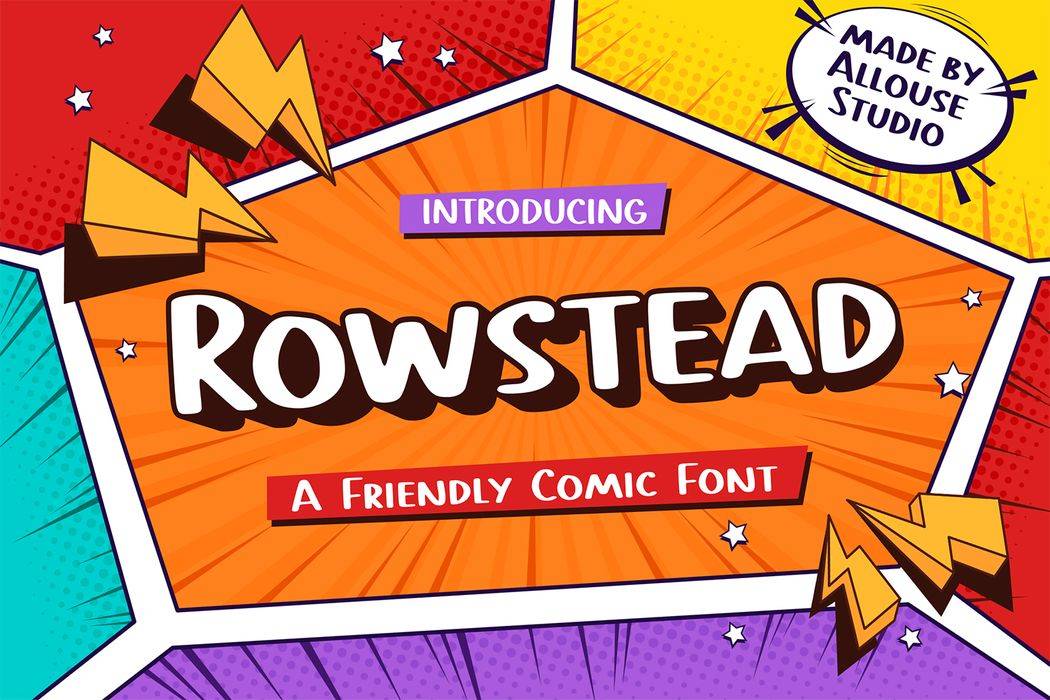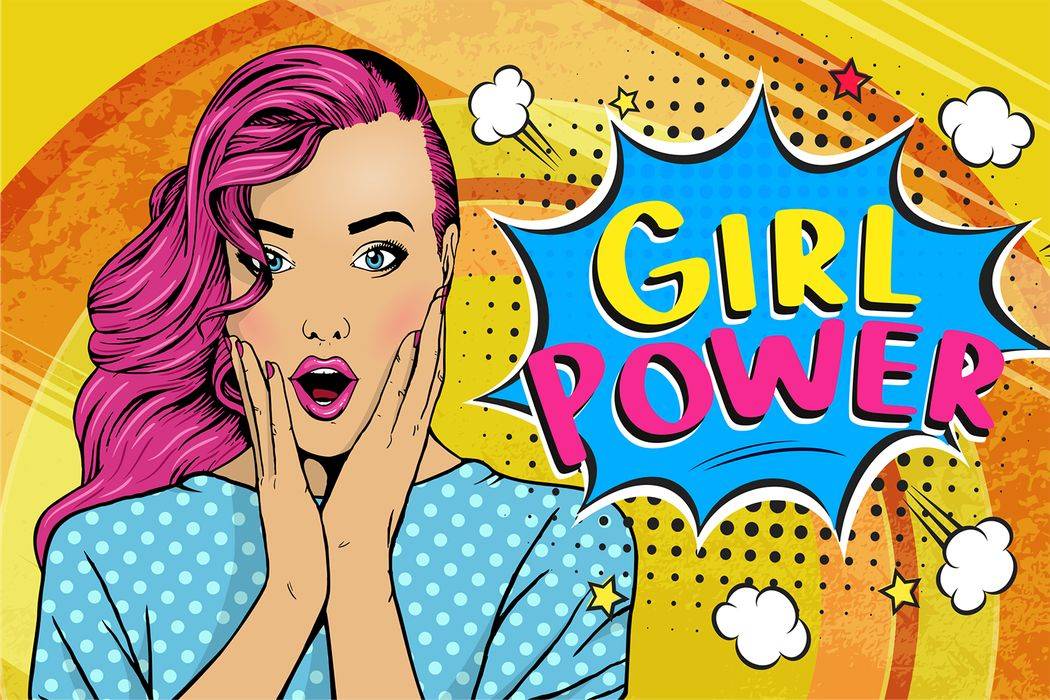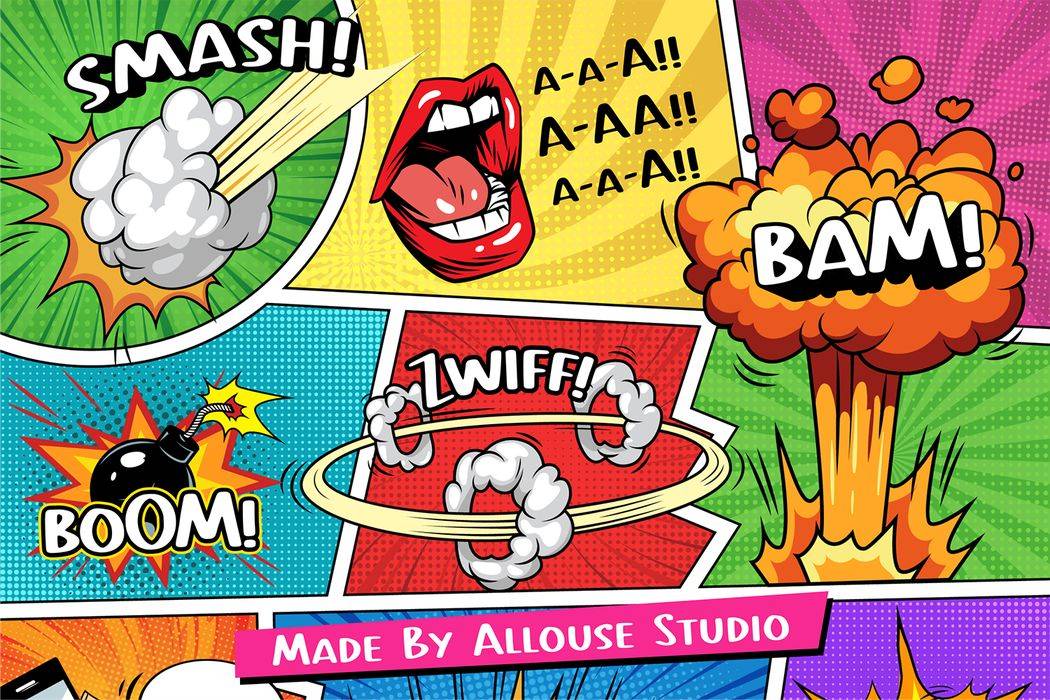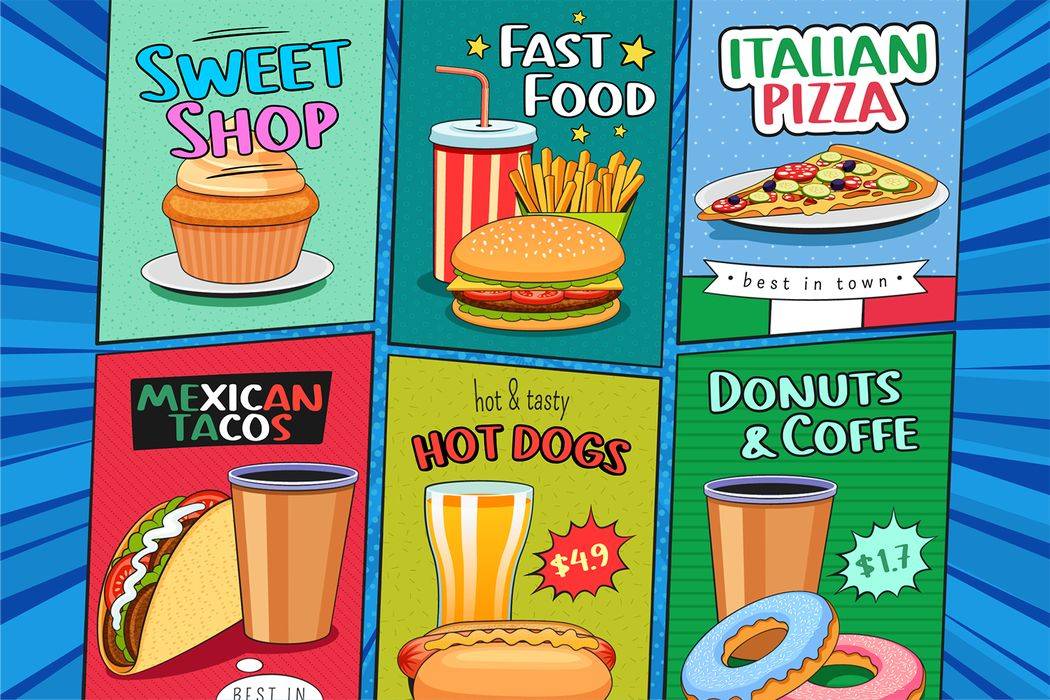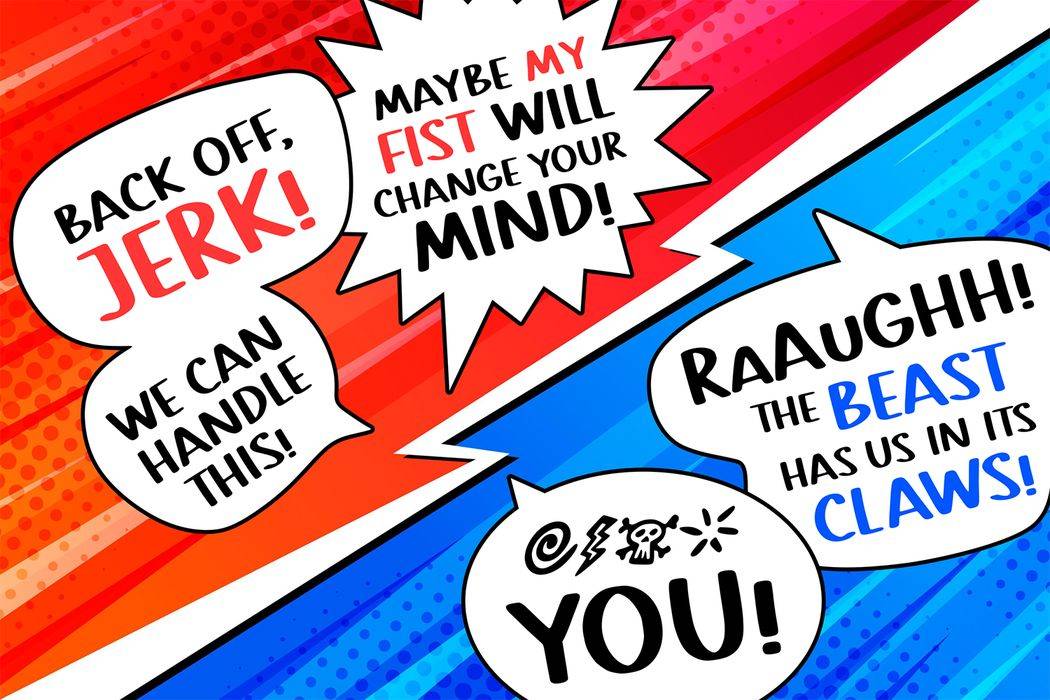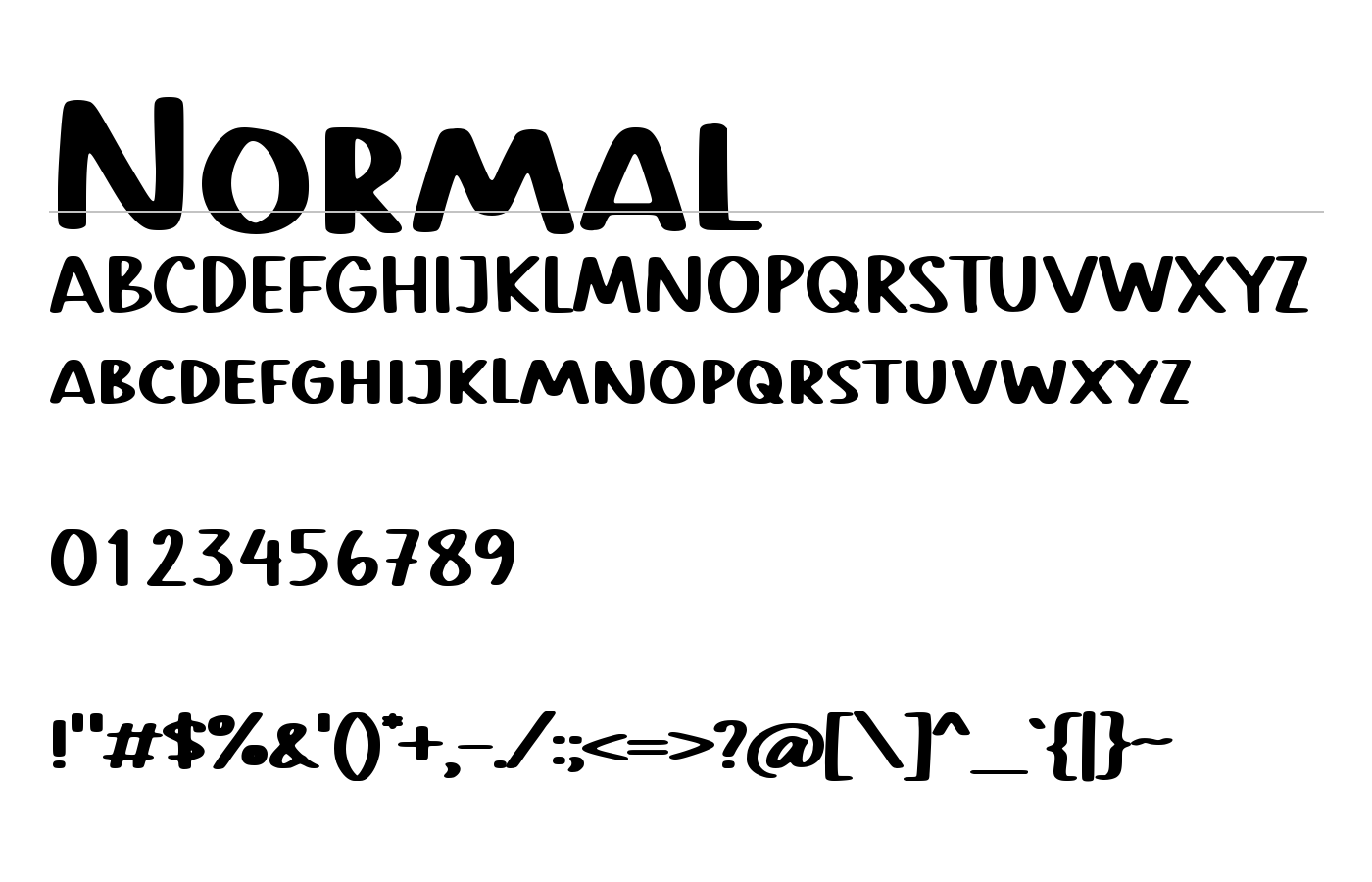
Rowstead is a friendly and casual sans serif font with a bold weight and moderately wide proportions that create a playful, approachable feel. Its soft, rounded letterforms and slightly quirky details give it a hand-drawn, informal character, making it perfect for fun headlines, invitations, and branding that wants to convey warmth and personality. This font works well in creative projects where a lively, youthful tone is desired.
Rowstead Font
About Rowstead Font